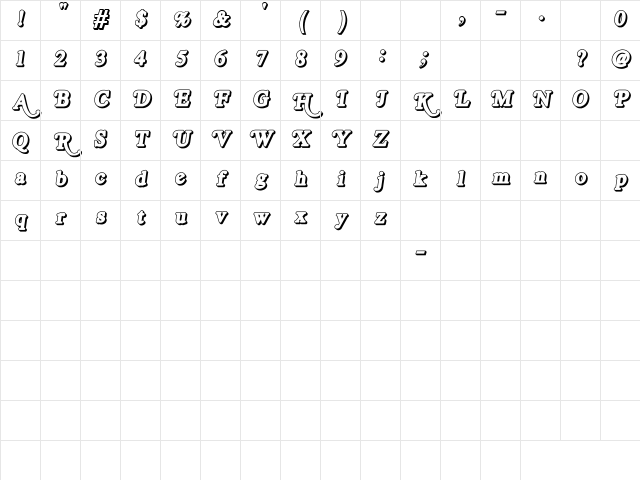
Royal Acidbath Outline
Style: Outline
Designer: Dennis Ludlow
Design Context for Royal Acidbath
Royal Acidbath is built around its visual character rather than neutral utility - its distinctive forms are designed to make an impression at display sizes.
Font Pairing: Pair with a clean neutral sans-serif for body copy to let Royal Acidbath's character lead without overwhelming the composition.
Pro Tip: Use Royal Acidbath exclusively at display sizes - it was designed to be seen, not read at length. Let a neutral companion handle body copy.